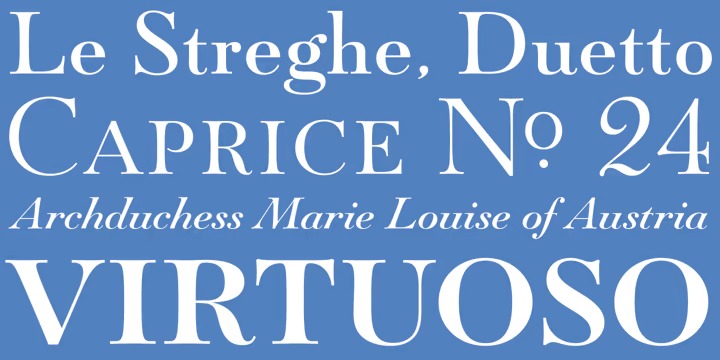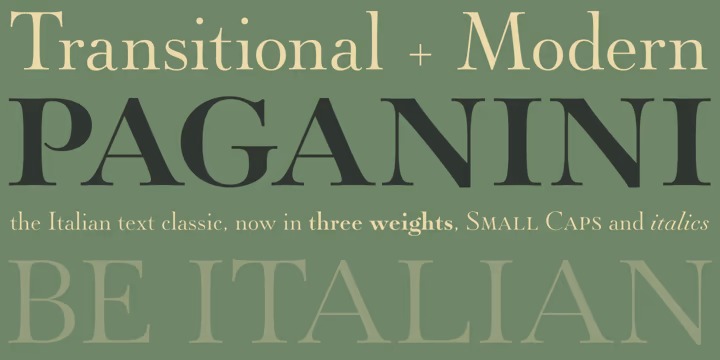
Paganini Font Family
Paganini Serif Font
This is a strong and incredibly cool, serif font with all the clean lines, tight curves, and trendy minimalist vibes! Designed in 1928 by Alessandro Butti under the direction of Raffaello Bertieri for the Nebiolo foundry, Paganini defies standard categorization. While it definitely is a classic foundry text face with obvious roots in the “oldstyle” of the Italian renaissance, its contrast reveals a clear underlying modern influence.
In a typical Italian artistic fashion, Paganini manages to be a superb text face while having enough priceless ornamental moments to make it great in display uses as well: Check out the splayed M, the wide-tailed g, the flowing tail on the y, the high-armed k, etcetera.
While the original metal version was limited to five basic fonts, this digital expansion includes small caps in the three main upright weights, plenty of alternate forms in all fonts, a super-seductive Open font, and an expanded language support covering the majority of Latin-based languages.